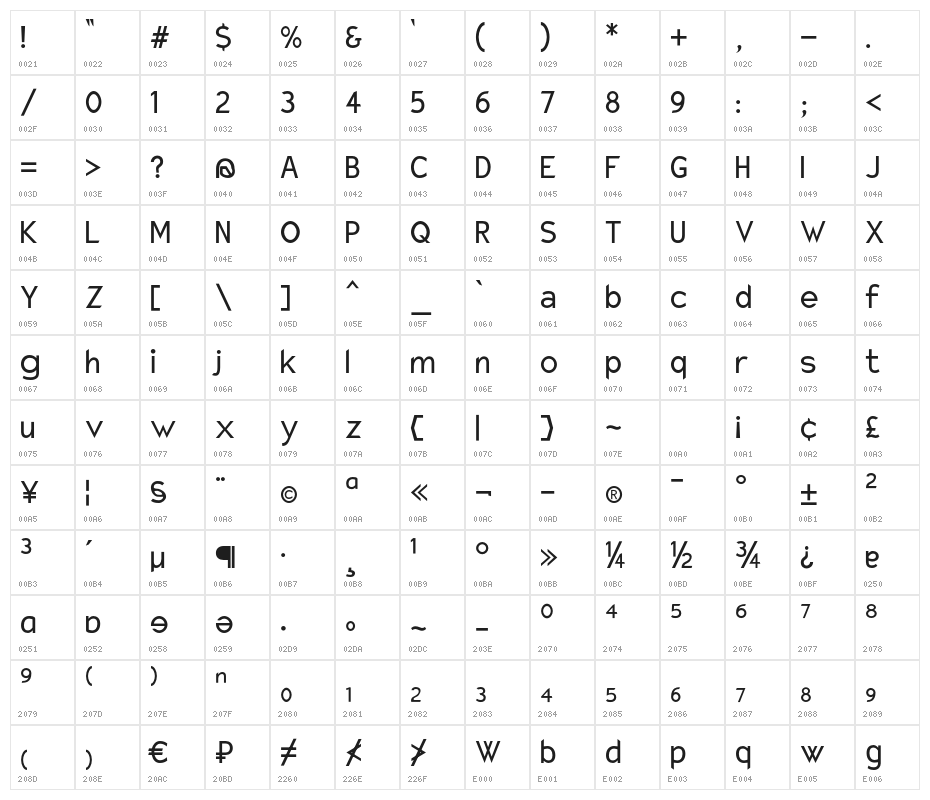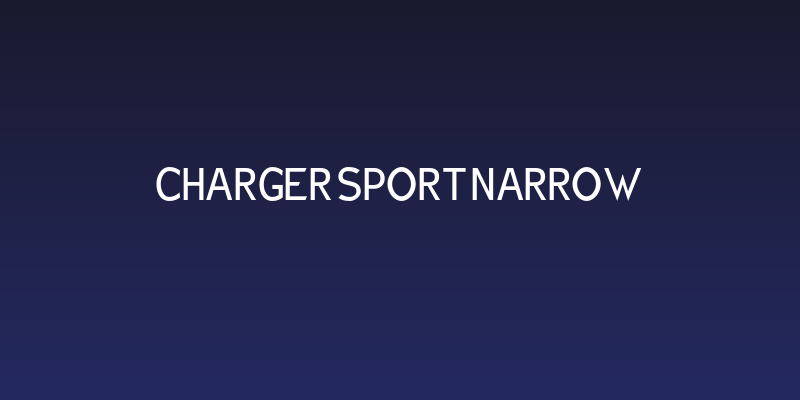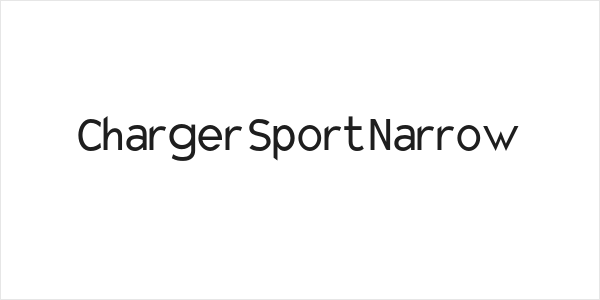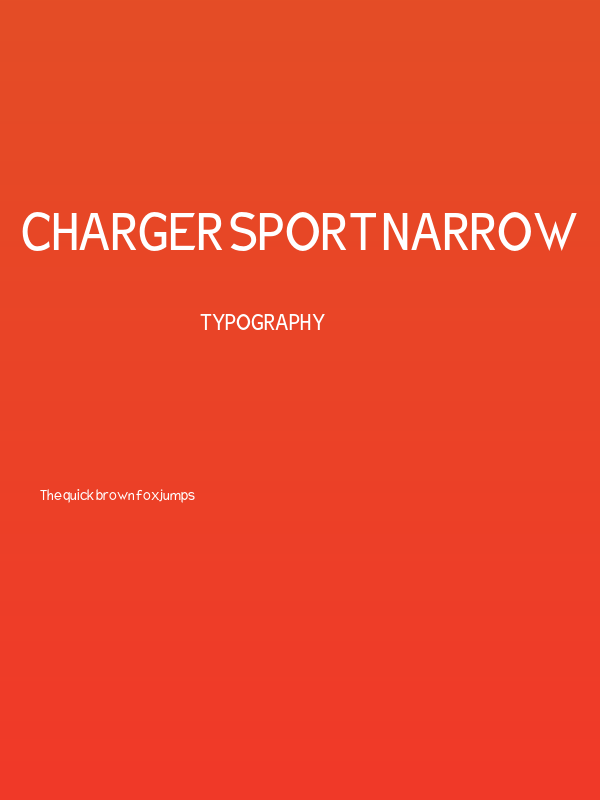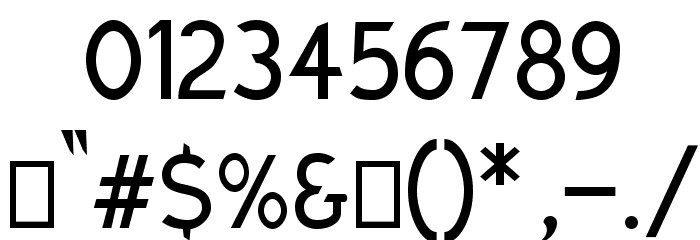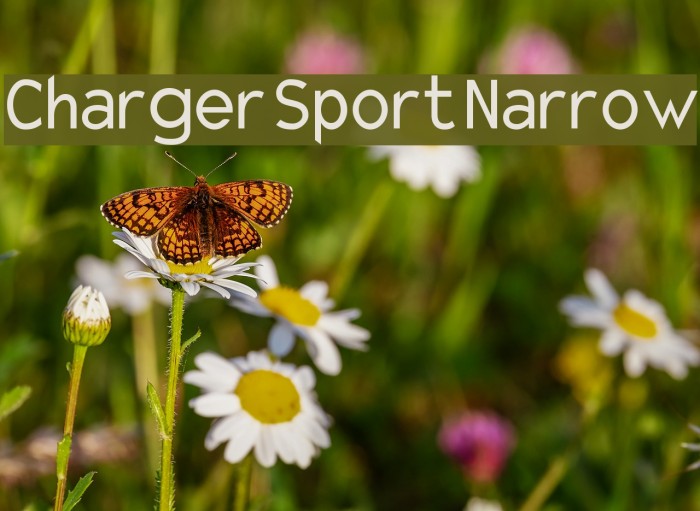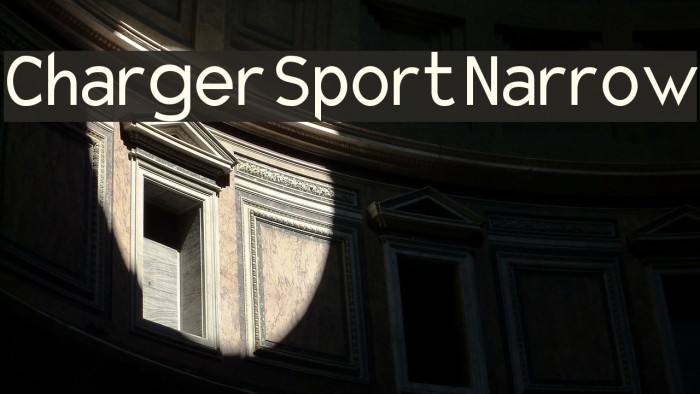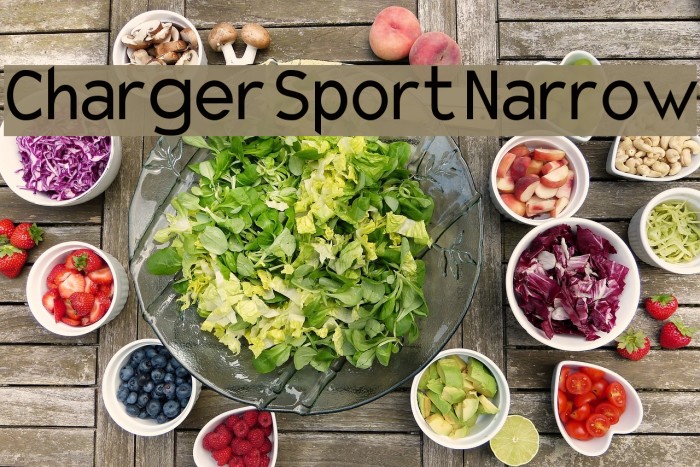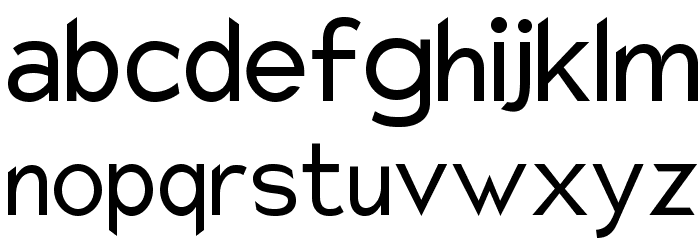
Charger Sport Narrow Font
Charger Sport Narrow Description
This font features a sleek, modern design with clean lines and a narrow profile. The uppercase letters are bold and commanding, while the lowercase letters maintain a consistent flow, enhancing readability. The numerals are distinct and well-proportioned, making them ideal for both digital and print applications. Special characters are crafted with precision, adding a touch of sophistication. The overall appearance is contemporary, making it suitable for a variety of design projects that require a professional and polished look.